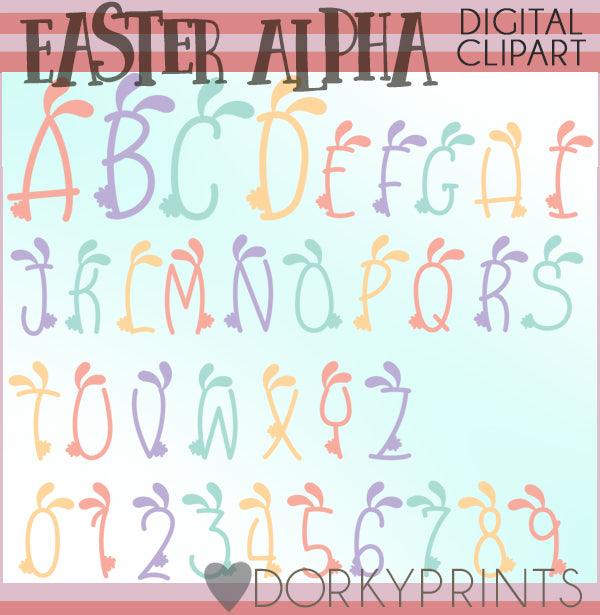
Bunny Ears Font and Symbols Clipart
This alphabet is ready to adorn all your Easter projects! You will get 36 Digital Clip Art images in PNG format
• the full alphabet - with bunny ears
• numbers 0-9 - with bunny ears